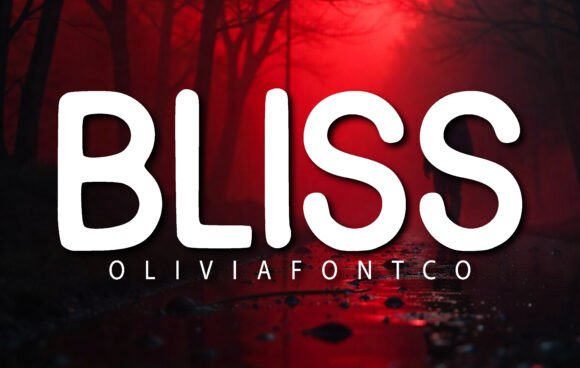
Introducing Bliss Font: The Friendly and Versatile Sans Serif Typeface
In the world of typography, fonts play a crucial role in conveying the tone and personality of a brand. Among the numerous typefaces available, Bliss Font stands out as a friendly and stable sans serif font that has captured the attention of designers and crafters alike. Defined by its thick, rounded letterforms and generous proportions, Bliss Font is an excellent choice for various design applications, from modern lifestyle branding to cheerful product packaging.
Design Characteristics of Bliss Font
Bliss Font boasts a unique design that sets it apart from other sans serif typefaces. Its key features include:
- Thick, rounded letterforms: The font’s rounded edges and thick lines create a sense of warmth and approachability, making it perfect for designs that require a friendly tone.
- Generous proportions: The font’s spacious letterforms ensure excellent legibility, even at smaller font sizes.
- Smooth, soft terminals: The font’s terminals are designed to be smooth and soft, adding to its overall friendly and approachable feel.
- Consistent stroke weights: The font’s consistent stroke weights contribute to its balanced and harmonious appearance.
Versatility of Bliss Font
Bliss Font’s versatility is one of its most significant advantages. Its high legibility and balanced geometric structure make it an excellent choice for various design applications, including:
- Modern lifestyle branding: Bliss Font is perfect for brands that want to convey a sense of friendliness and approachability.
- Mobile app interfaces: The font’s clear and legible design makes it an excellent choice for mobile app interfaces, ensuring a seamless user experience.
- Cheerful product packaging: Bliss Font’s playful and friendly design makes it ideal for product packaging that requires a cheerful and attention-grabbing tone.
- Bold advertising headers: The font’s bold and confident design makes it perfect for advertising headers that require a strong and impactful statement.
Benefits of Using Bliss Font
Bliss Font offers several benefits to designers and crafters, including:
- Improved legibility: The font’s clear and balanced design ensures excellent legibility, even at smaller font sizes.
- Enhanced brand personality: Bliss Font’s friendly and approachable design helps brands convey a sense of warmth and personality.
- Versatility: The font’s versatility makes it suitable for various design applications, from digital interfaces to print materials.
- Time-saving: Bliss Font’s clear and legible design saves designers time and effort in creating custom typography.
In conclusion, Bliss Font is a friendly and versatile sans serif typeface that offers a unique combination of style, legibility, and versatility. Its thick, rounded letterforms, generous proportions, and smooth terminals make it perfect for designs that require a friendly and approachable tone. Whether you’re a designer or crafter, Bliss Font is an excellent choice for various design applications, from modern lifestyle branding to cheerful product packaging. With its numerous benefits and design characteristics, Bliss Font is sure to become a staple in your typography collection.